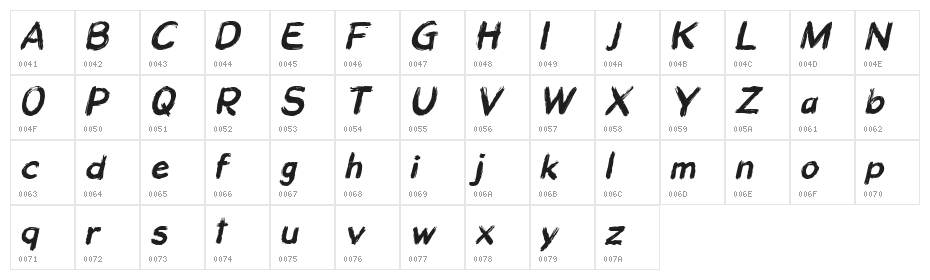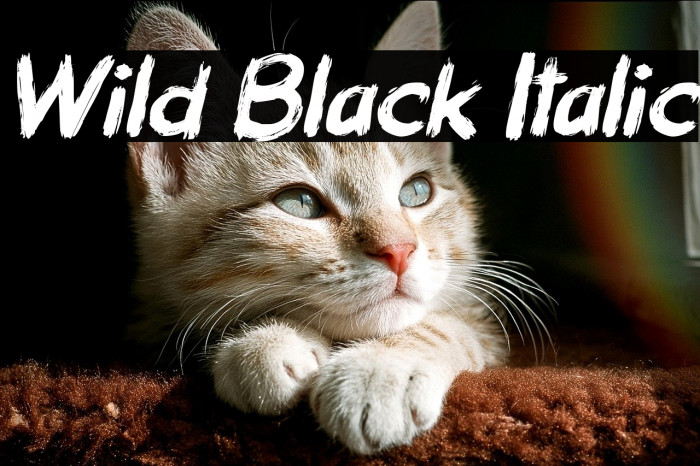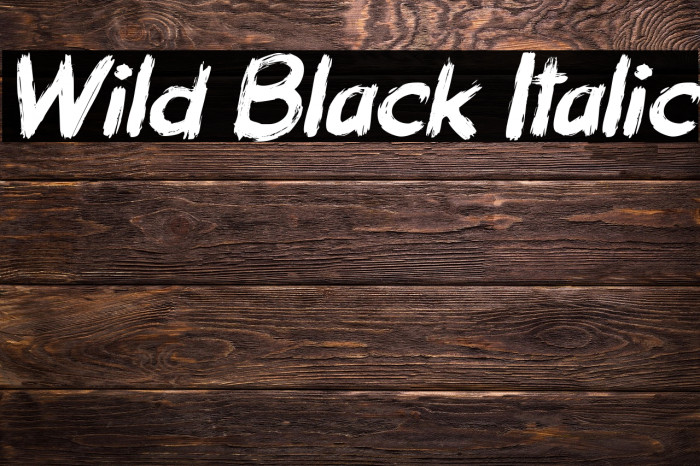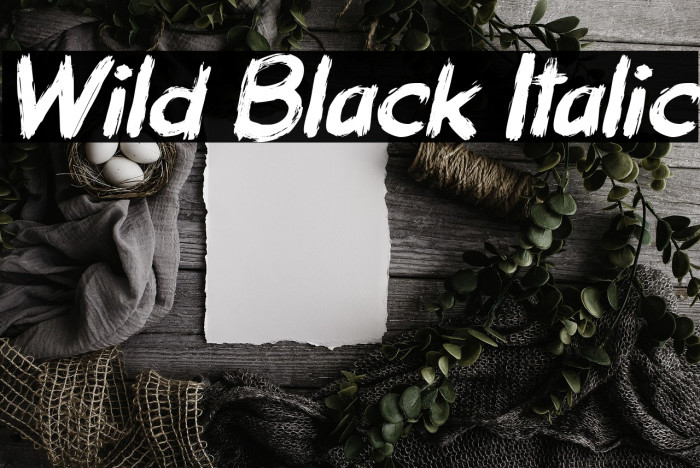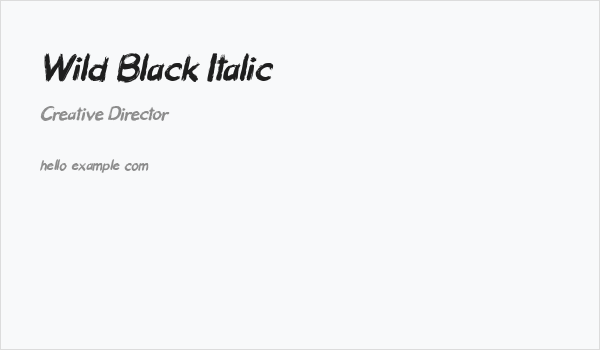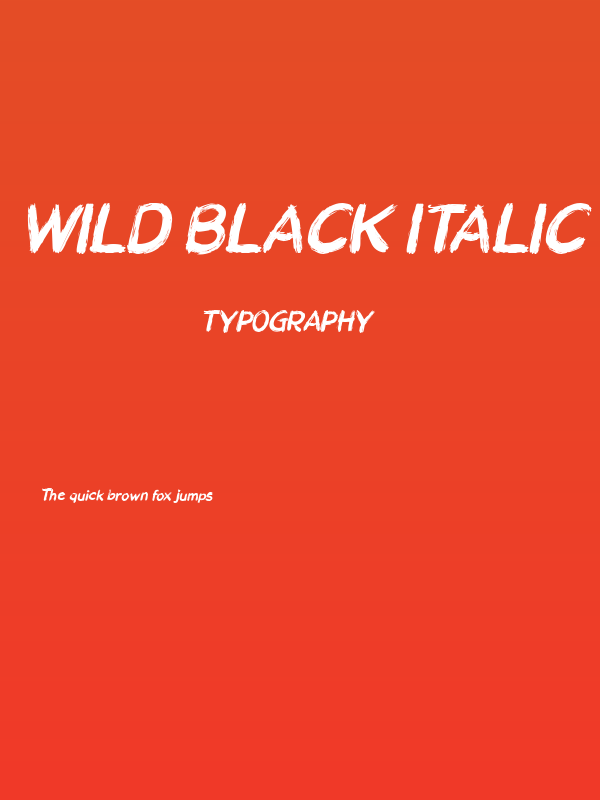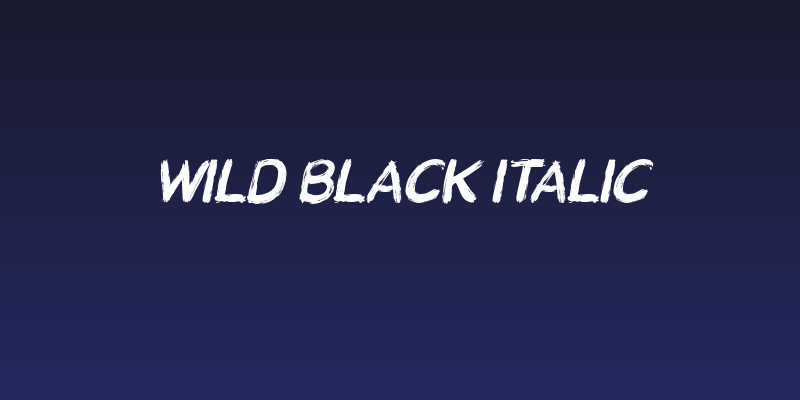
Wild Black Italic Font
Wild Black Italic Description
This font exhibits a bold and dynamic brushstroke style, characterized by its energetic and expressive appearance. The letters are crafted with a rough, textured finish, giving them a hand-painted look that conveys movement and spontaneity. The strokes vary in thickness, adding to the font's dramatic and artistic flair. Its italic slant enhances the sense of motion, making it ideal for projects that require a bold statement. The uppercase and lowercase letters maintain a consistent style, with each character uniquely shaped to emphasize individuality while maintaining overall coherence.
Proposed ProjectsIdeal for artistic posters, dynamic branding, expressive headlines, and creative design projects.